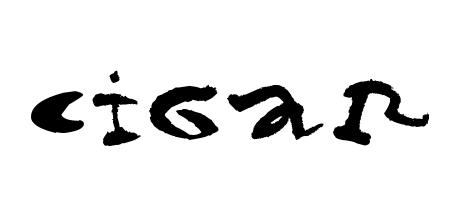
Cigar
By Johan Waldenström
Cigar, a whimsical script font, boasts a playful, hand-drawn aesthetic. Its letters are uneven and slightly wobbly, giving it a charmingly imperfect feel. The 'C' and 'R' are particularly expressive, with flowing tails that add to the font's carefree personality. It's perfect for projects needing a touch of casual elegance.